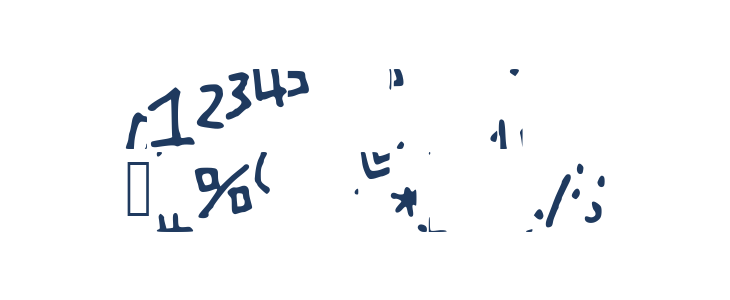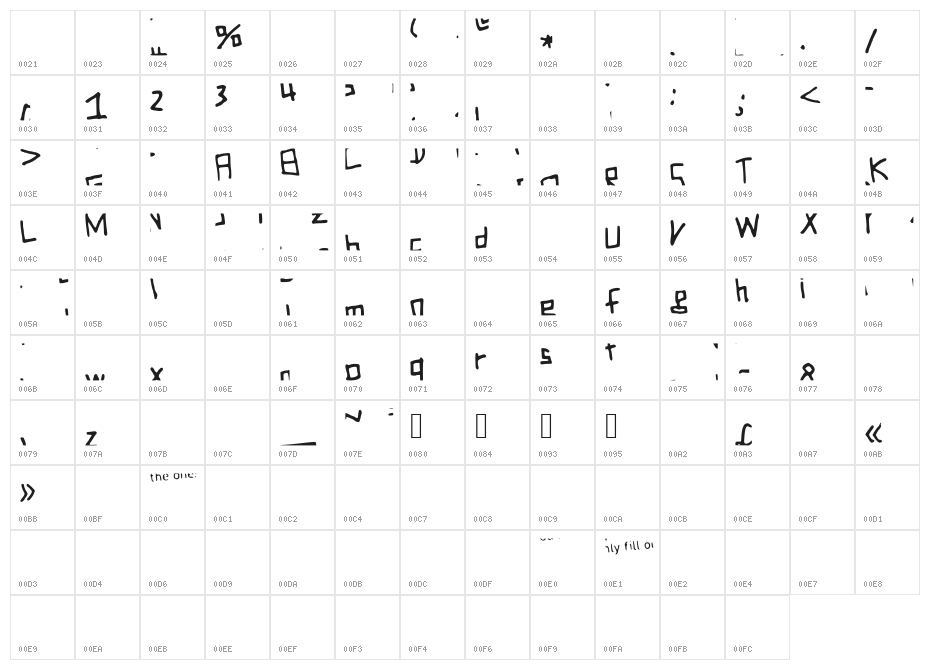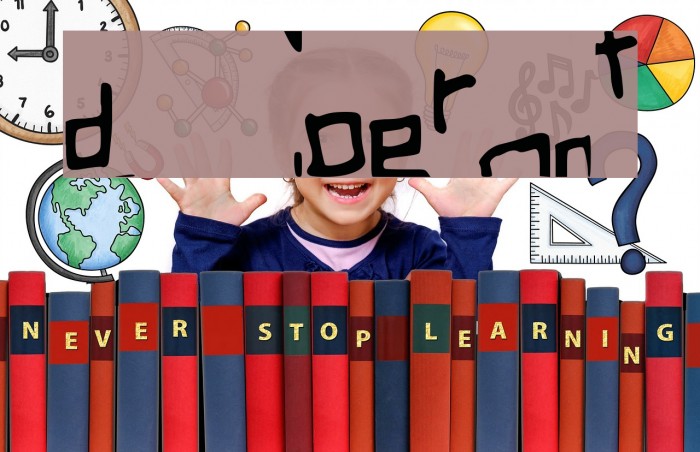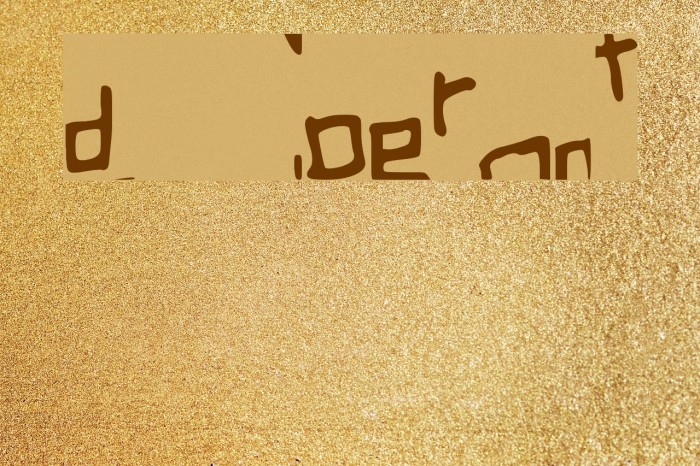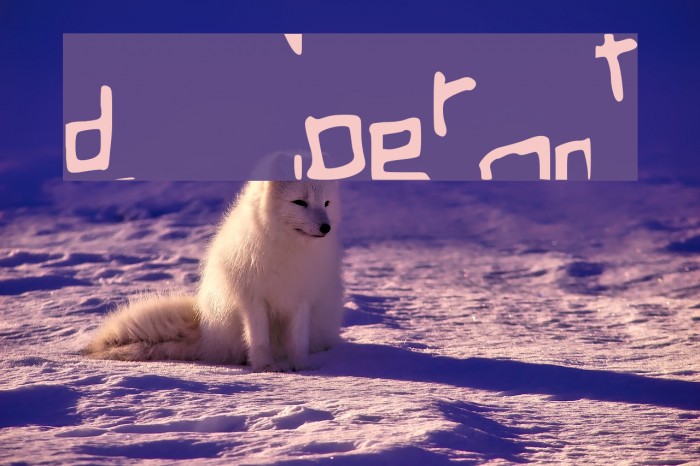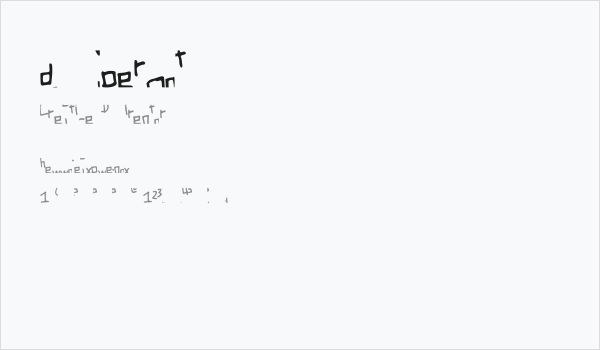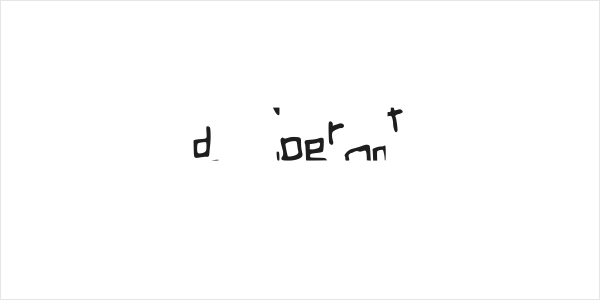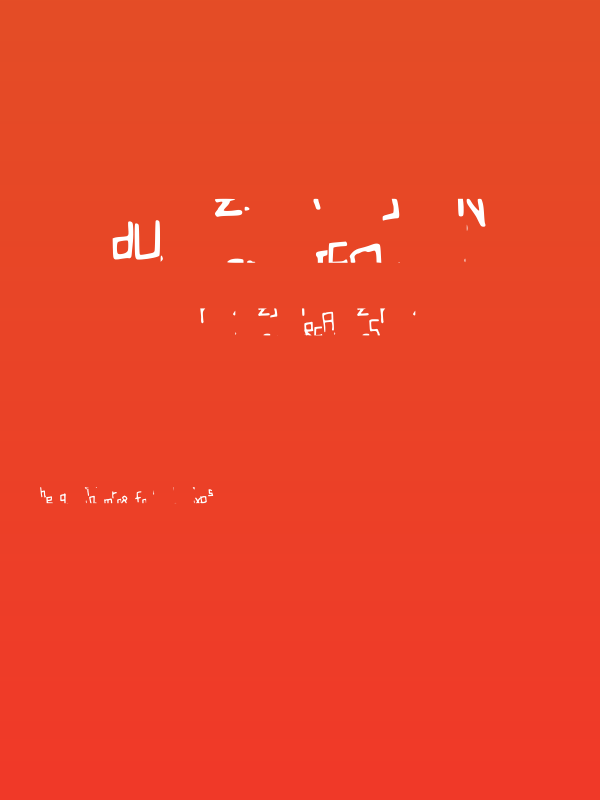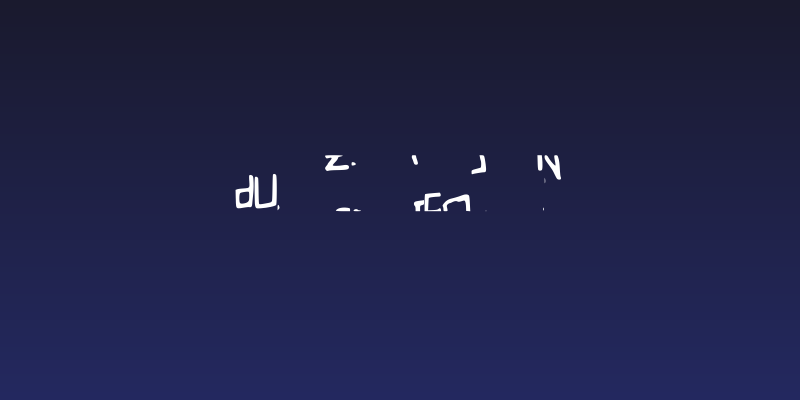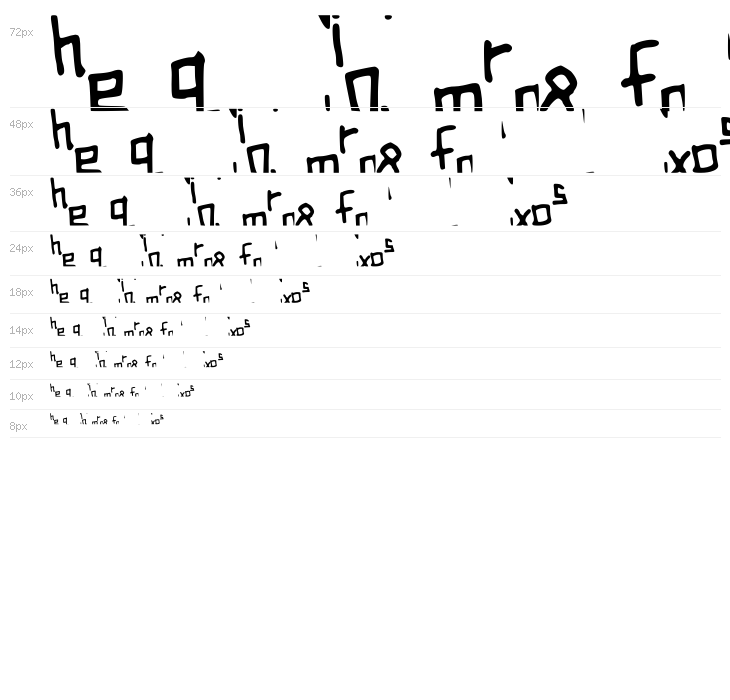
SuperFont Font
✎ Distorted Eroded
SuperFont Description
This font exhibits a highly distorted and abstract style, with characters that appear fragmented and irregular. The letters are unevenly spaced and vary significantly in size and orientation, creating a chaotic and dynamic visual effect. The strokes are inconsistent, with some parts appearing thicker and others thinner, contributing to a sense of unpredictability. This font challenges traditional readability, making it more suitable for artistic or experimental projects where conventional legibility is not a priority. The overall impression is one of spontaneity and creative expression, pushing the boundaries of typical font design.
| Categories | Distorted Eroded |
| Overall Style | Abstract |
| Use Case | Artistic designs, experimental projects |
| Proposed Projects | Ideal for experimental art projects, abstract designs, or unconventional branding where traditional readability is secondary. |